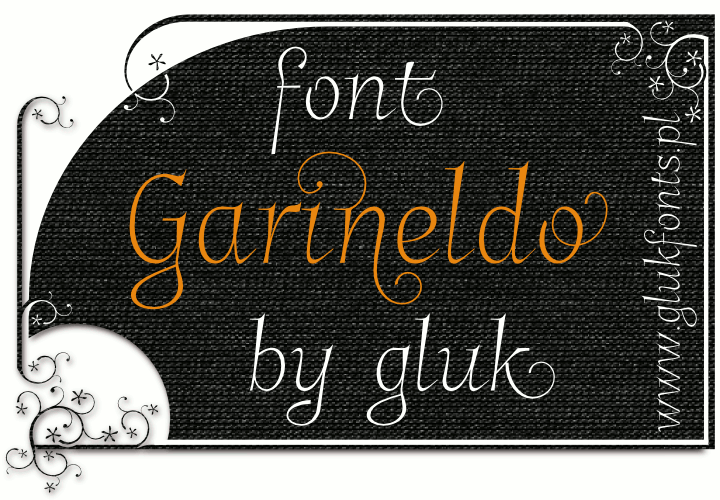
Font name: | Garineldo |
Author: | gluk |
Note by gluk | |
Play with Garineldo (stylistic Sets) or try GarineldoNo01 with contextual, decorative Alternates. New GarineldoNo02 with Swashes compatibles to GarineldoSC 12.11.2012 - some errors fixed |